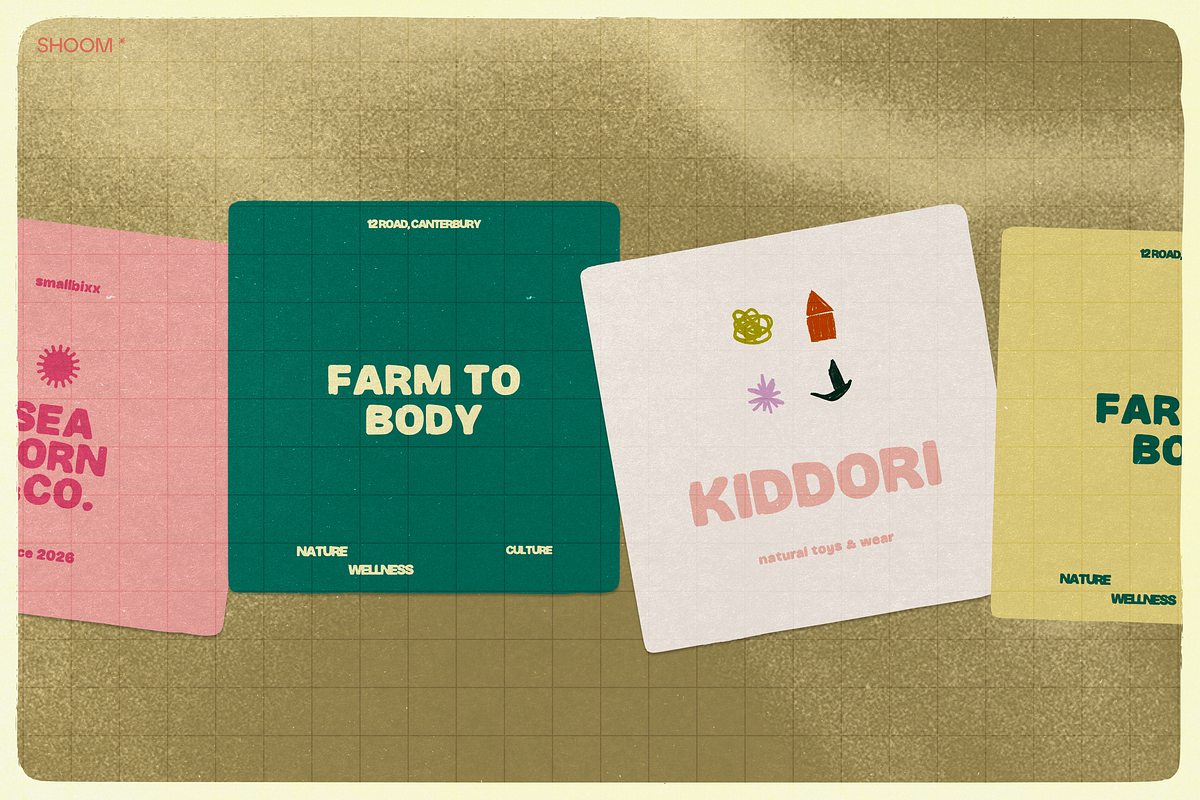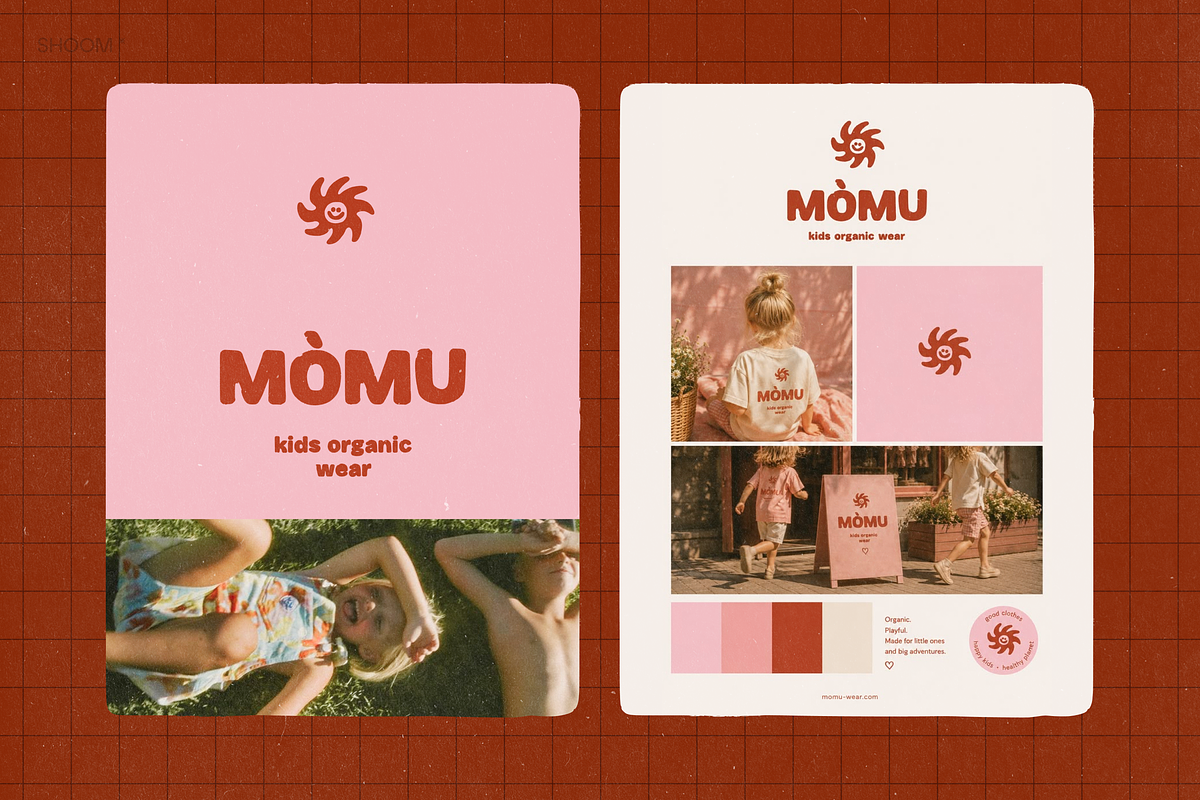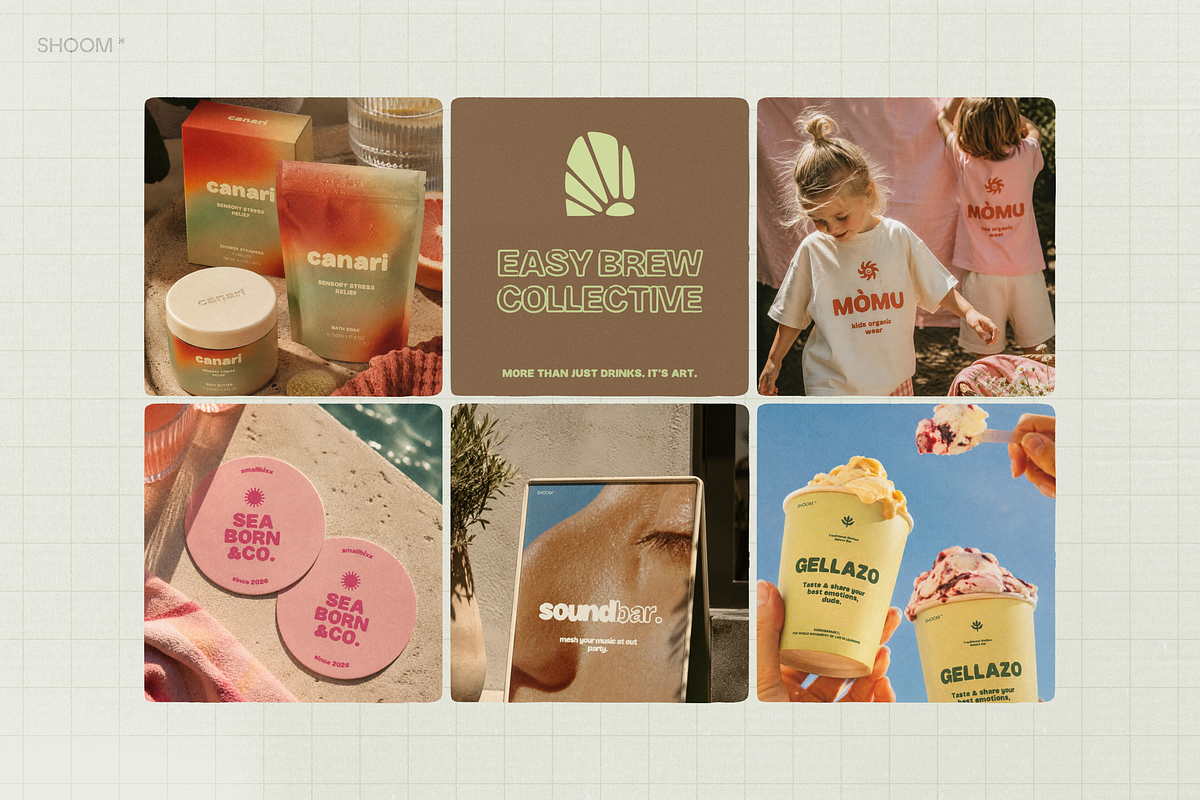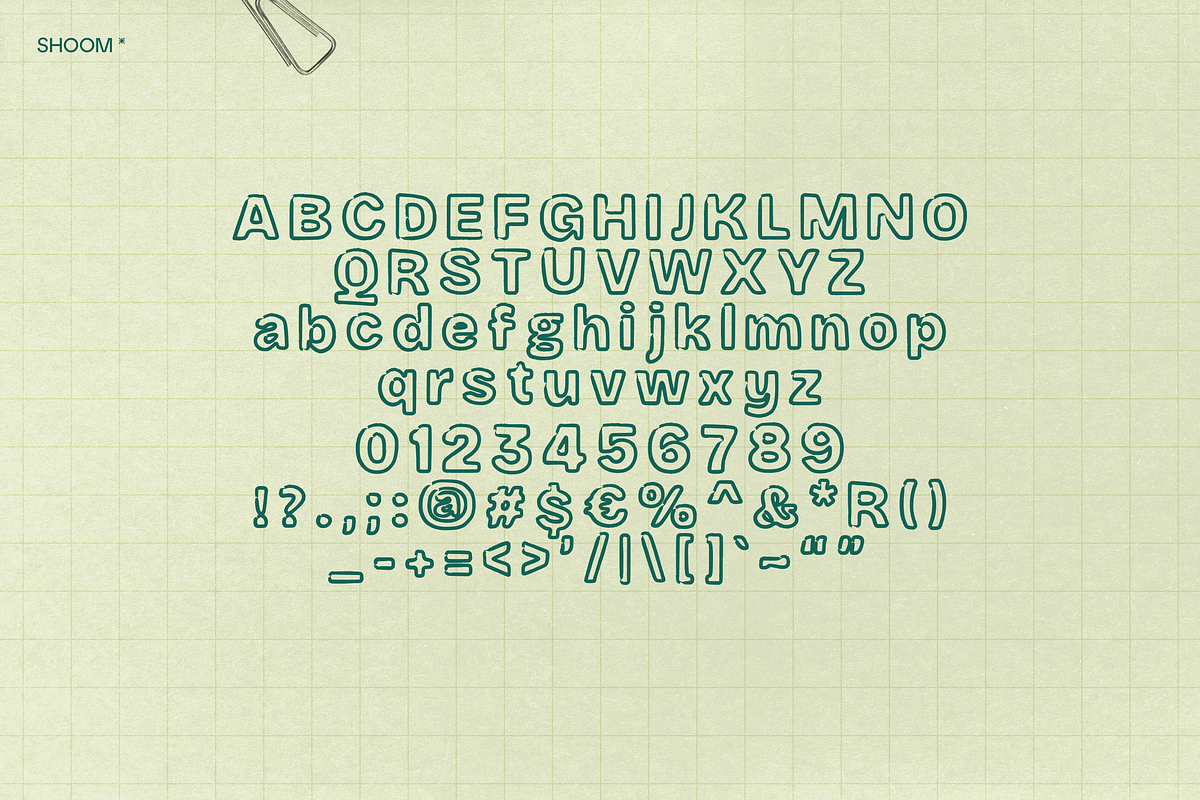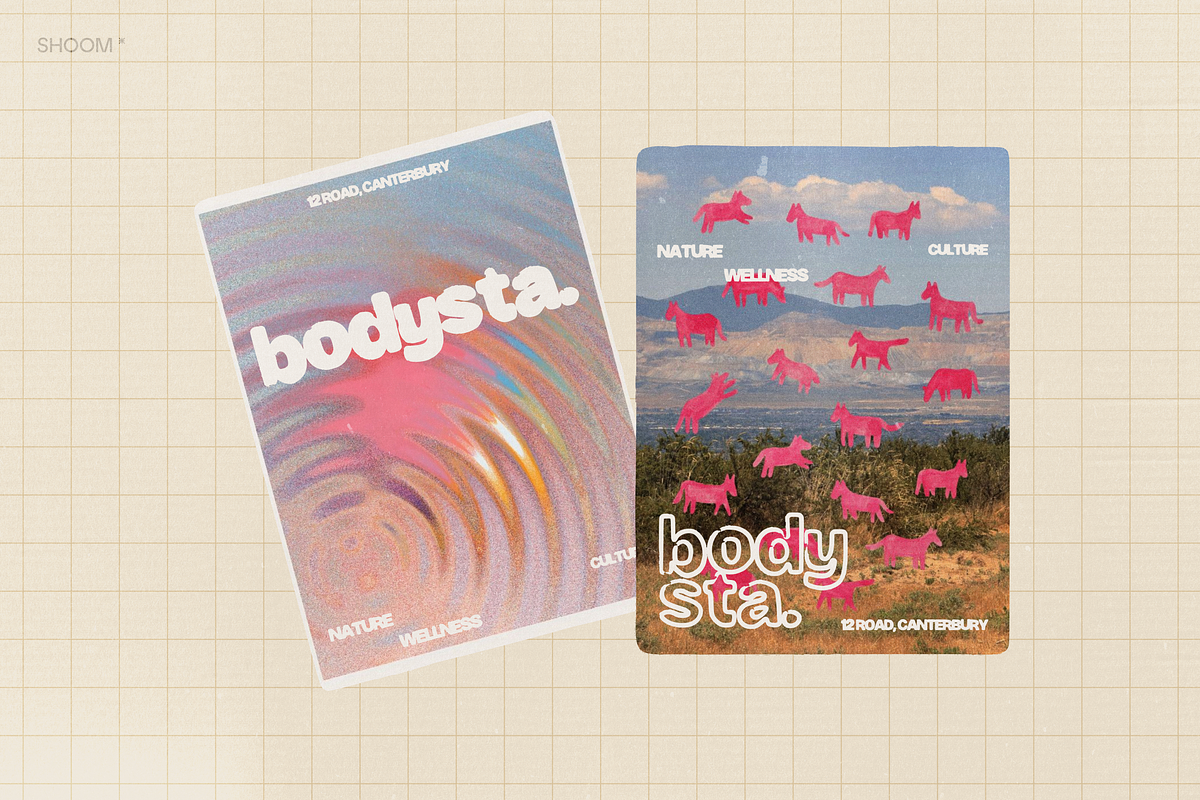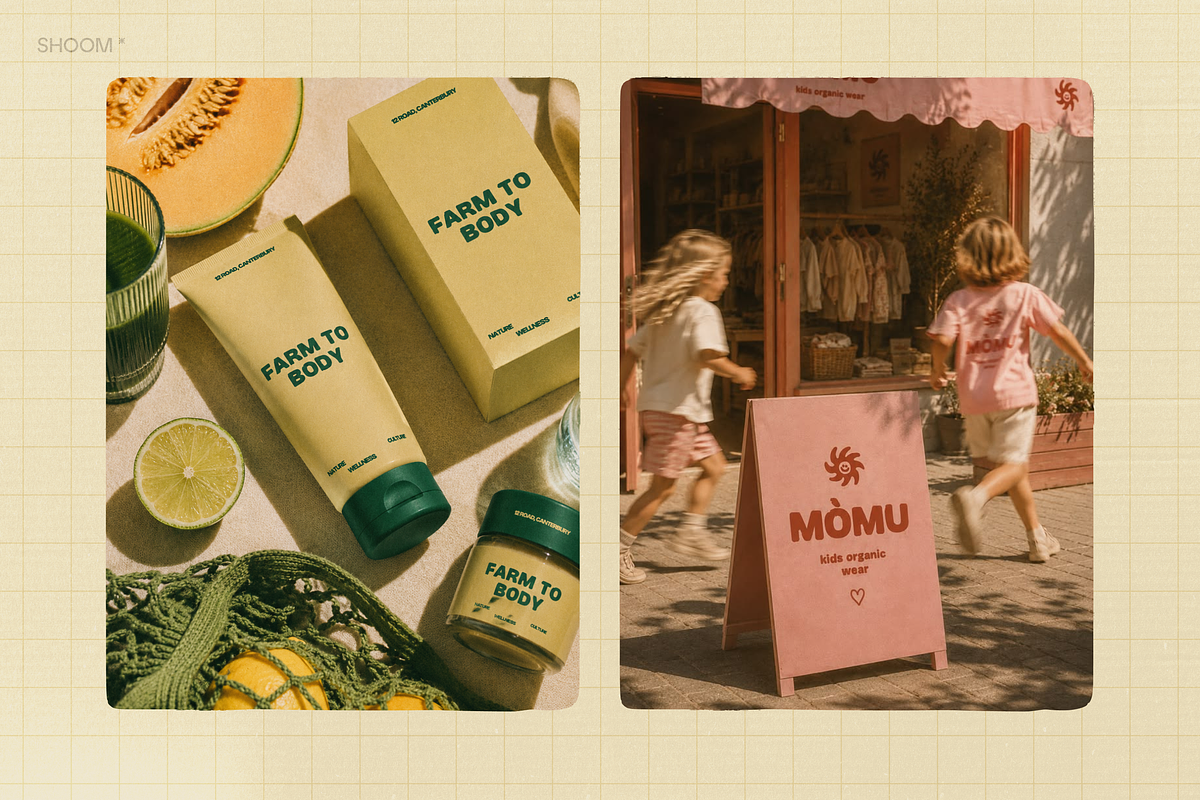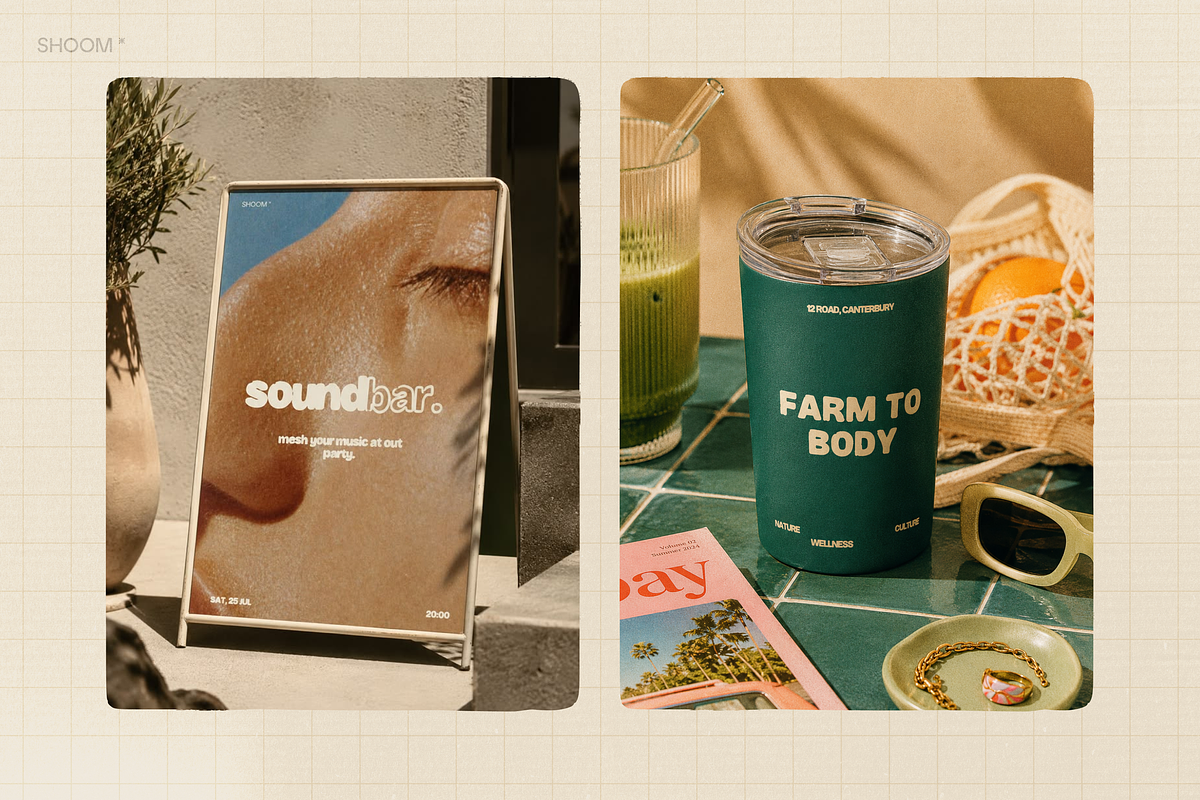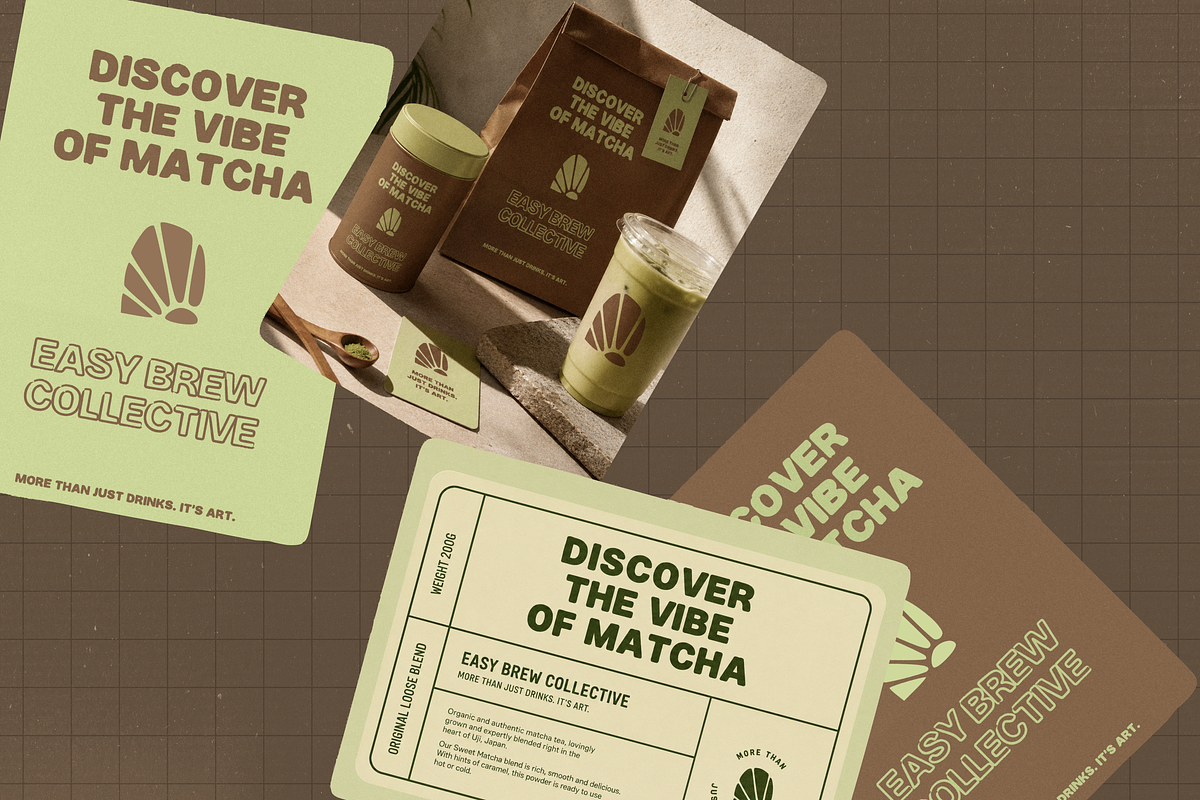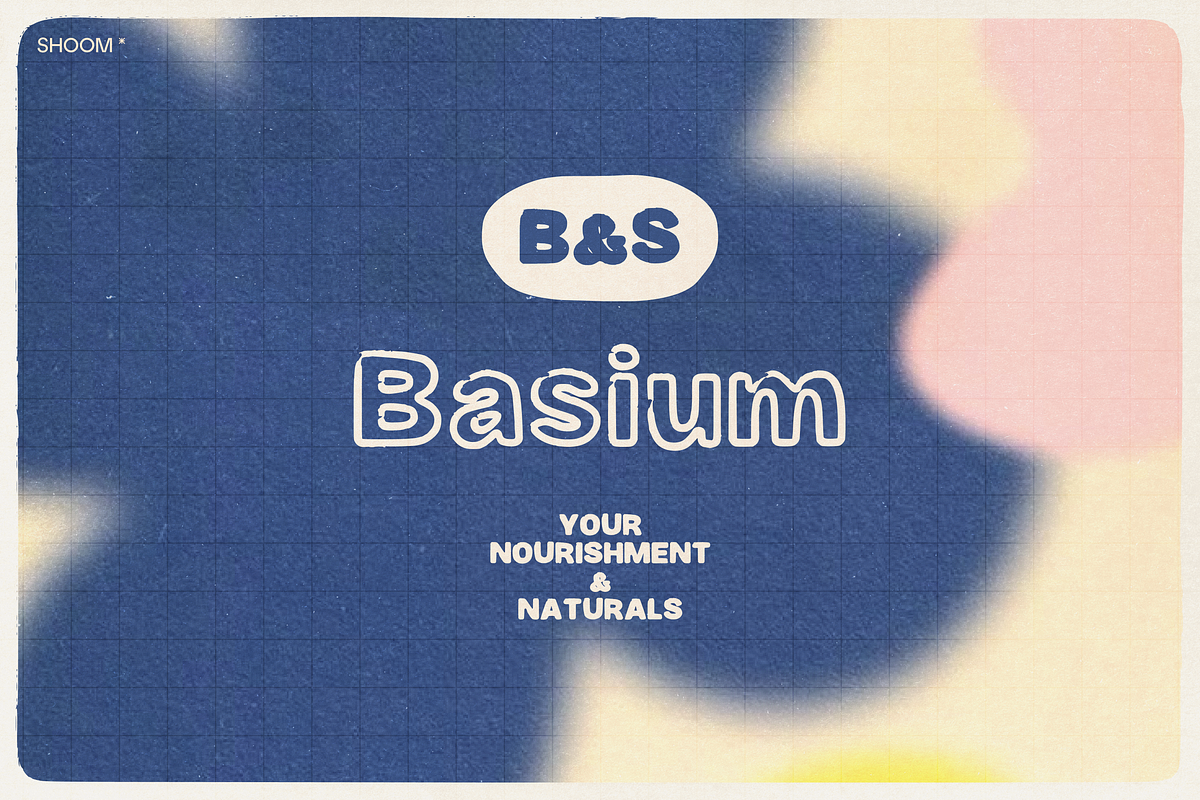
Bold Writer: Chunky Font Family
✽ Meet Bold Writer Font Family − a playful handcrafted display font with an imperfect soul.
Regular + Otlined options are designed to feel naturally handmade. Bold Writer embraces uneven edges, dopamine and cozy mood, organic curves, and bold shapes that add instant personality to your work. Every letter carries a crafted, human touch, making your designs feel authentic instead of overly polished.
Whether you're creating branding, packaging, posters, social media graphics, or editorial layouts, this font brings confidence, warmth, and a playful handcrafted attitude.
Perfect for designers who love expressive typography with modern creative vibes.
✽ FONT FEATURES
Bold display font
Regular + Otlined options
Handcrafted & imperfect character shapes
Uppercase & lowercase English alphabet
Made for bold ideas, creative brands, and projects that deserve typography with genuine personality.